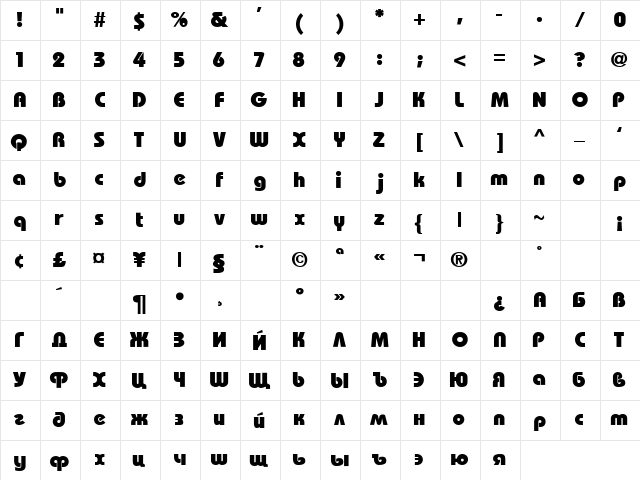
Design Context for font49 Typeface
font49 offers clean, dependable letterforms without strong stylistic allegiance, making it a practical choice for designers who need flexibility.